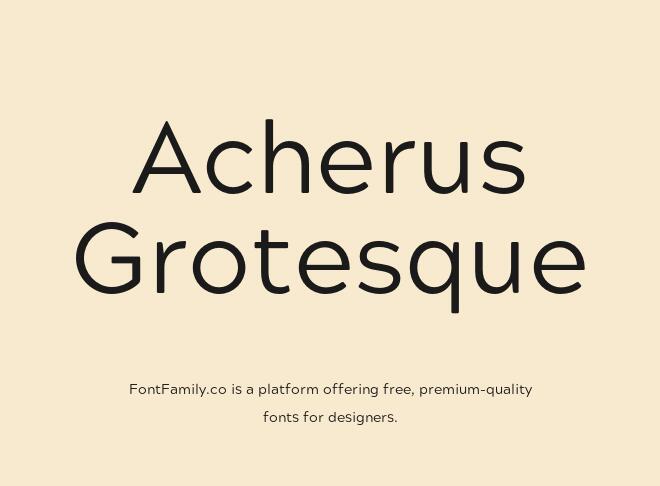
Acherus Grotesque Font
Acherus Grotesque Font is a modern and minimal typeface designed by Horizon Type. Its geometric structure and clean, crisp lines give it a futuristic feel while maintaining a classic, timeless appeal. The font is incredibly versatile, making it perfect for a wide range of design projects including logos, headlines, and branding. Acherus Grotesque stands out in the crowd of sans-serif fonts with its unique blend of modern and classic elements. It's a great choice for designers looking to add a touch of sophistication and simplicity to their work. The font's clear legibility, even at small sizes, makes it an excellent option for both print and digital media. Its commercial license allows designers to use it freely in their professional projects, adding value and style to their designs.